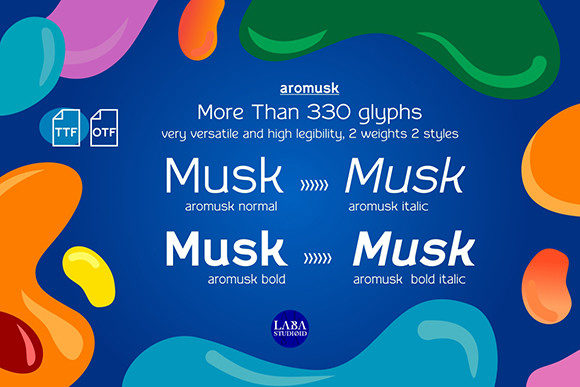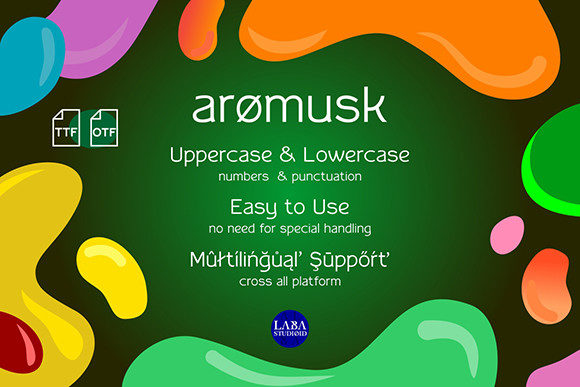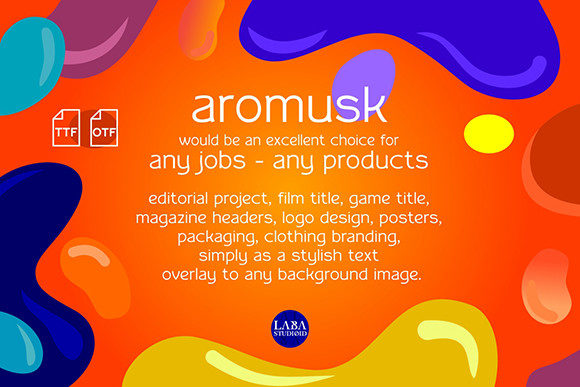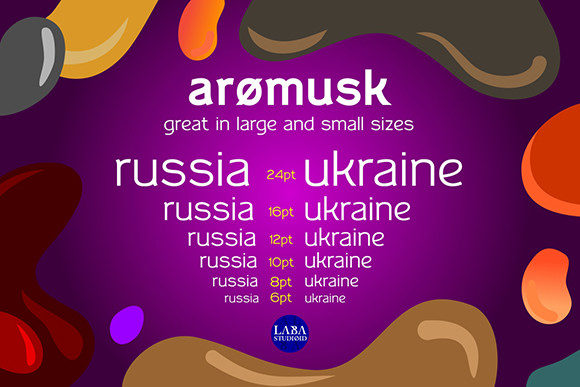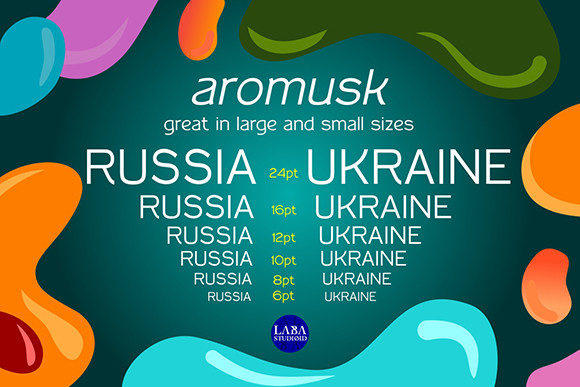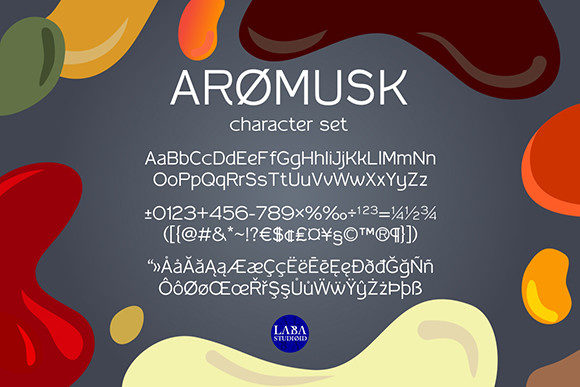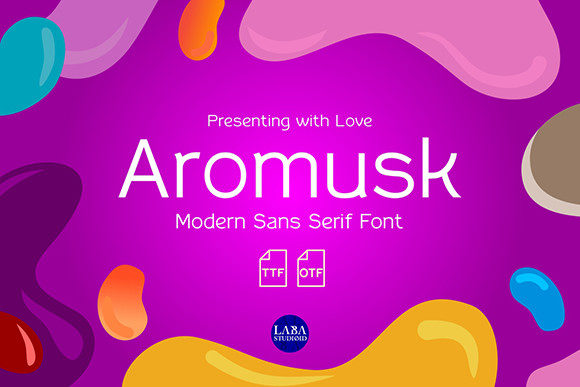
The Designer’s Delight: Aromusk Font
Have you ever been in the middle of a design project, and suddenly, you’re stuck on finding the perfect font? I recall a recent experience where I was working on a branding project for a tech startup, and I just couldn’t find a font that screamed modernity and innovation. That’s when I stumbled upon the Aromusk font, and it was love at first sight! 💡
A Personal Review of Aromusk
As a designer, I’m always on the lookout for fonts that can elevate my projects. Here’s my honest review of Aromusk:
• ✨ Clean and modern sans-serif design
• ✅ Perfect for futuristic branding projects
• ⚡️ Highly versatile for various design applications
• 🌎 Great for global brands looking for a neutral, yet modern feel
• 🤔 Limited availability of extended language support
• ⚠️ Not ideal for body text due to its sleek, modern design
Aromusk is not just a beautiful font; it’s also packed with features like OpenType, glyphs, and stylistic alternates. Here’s how to make the most of it on popular design platforms:
The Story Behind Aromusk
Aromusk was designed with the modern brand in mind. Its creator aimed to craft a font that was both clean and futuristic, perfect for brands looking to make a statement in a crowded market. The name “Aromusk” reflects the blend of sleekness and a hint of mystery, making it a compelling choice for designers.
Q: What makes Aromusk suitable for branding projects?
A: Aromusk’s clean and modern design makes it highly versatile and suitable for a wide range of branding projects, from tech startups to creative agencies.
Q: Can I use Aromusk for body text?
A: While Aromusk is stunning, it’s primarily designed for headlines and titles. Its sleek design might not be ideal for extended body text.
Q: Does Aromusk support multiple languages?
A: Aromusk supports a range of languages, but it’s essential to verify the specific language support to ensure it meets your project’s needs.